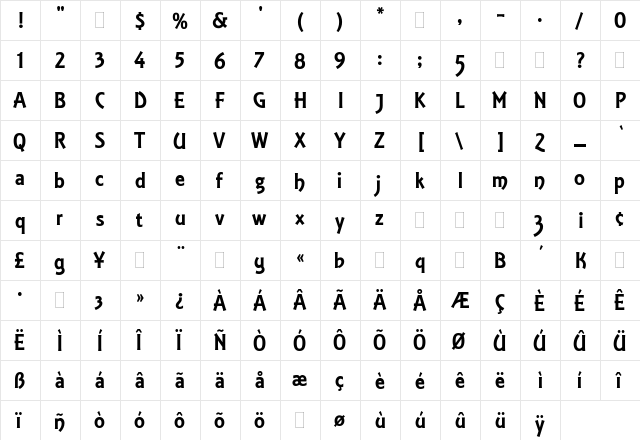
EquinoxLETPlain1 Regular
Design Context for EquinoxLETPlain1 Typeface
EquinoxLETPlain1 is a composed and adaptable typeface that performs quietly and consistently across a wide range of design contexts.
Pro Tip: Use EquinoxLETPlain1 in both headline and body roles to test its range before committing to a single application.